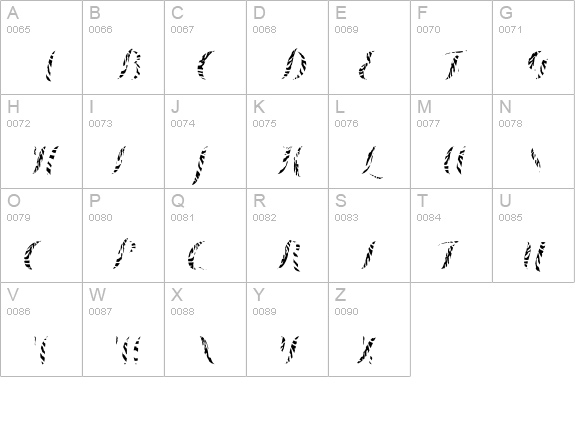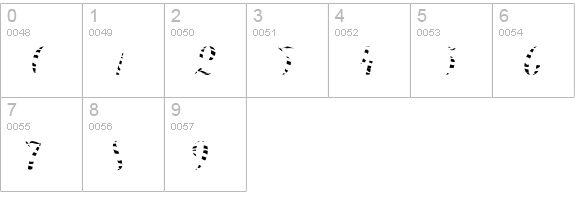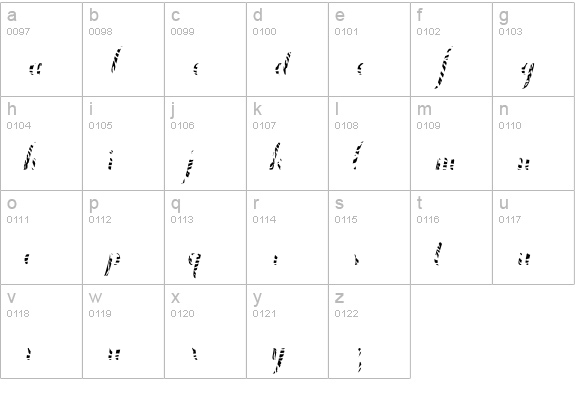
Chameleon Fill Skin1 is a captivating and versatile font that truly lives up to its name. Its unique design features a playful and whimsical appearance, making it perfect for a wide range of creative projects. The font offers a charming blend of modernity and elegance, making it a standout choice for various design applications. One of the best things about Chameleon Fill Skin1 font is that it is available for free download at FontsMarket.com. This means that you can easily access this eye-catching font without any cost, allowing you to add a touch of creativity and flair to your projects without breaking the bank. Whether you're working on branding, advertising, invitations, or any other design project, Chameleon Fill Skin1 font is sure to make a lasting impression. Its soft curves and intricate details will bring a sense of fun and sophistication to your designs, making them stand out from the crowd. Download Chameleon Fill Skin1 font for free today and elevate your design projects with its unique charm and versatility.